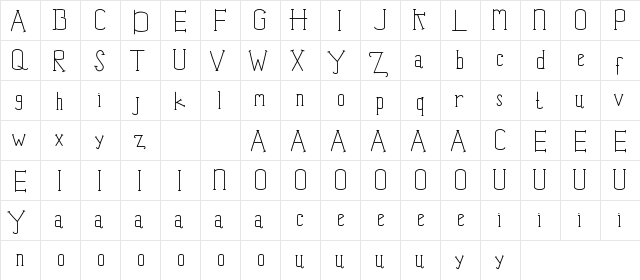
Jim Alistair Demo Serif Regular
| Foundry | Edric Studio |
| Designer | Saila nurissalma & Suci Anita |
Design Context for Jim Alistair Demo Serif Typeface
Jim Alistair Demo Serif carries the refined structure of traditional serif typography, with bracketed terminals and considered proportions that communicate credibility and craft.
Pro Tip: Set Jim Alistair Demo Serif with slightly loose tracking in headlines to let each letterform's detail read clearly at display sizes.